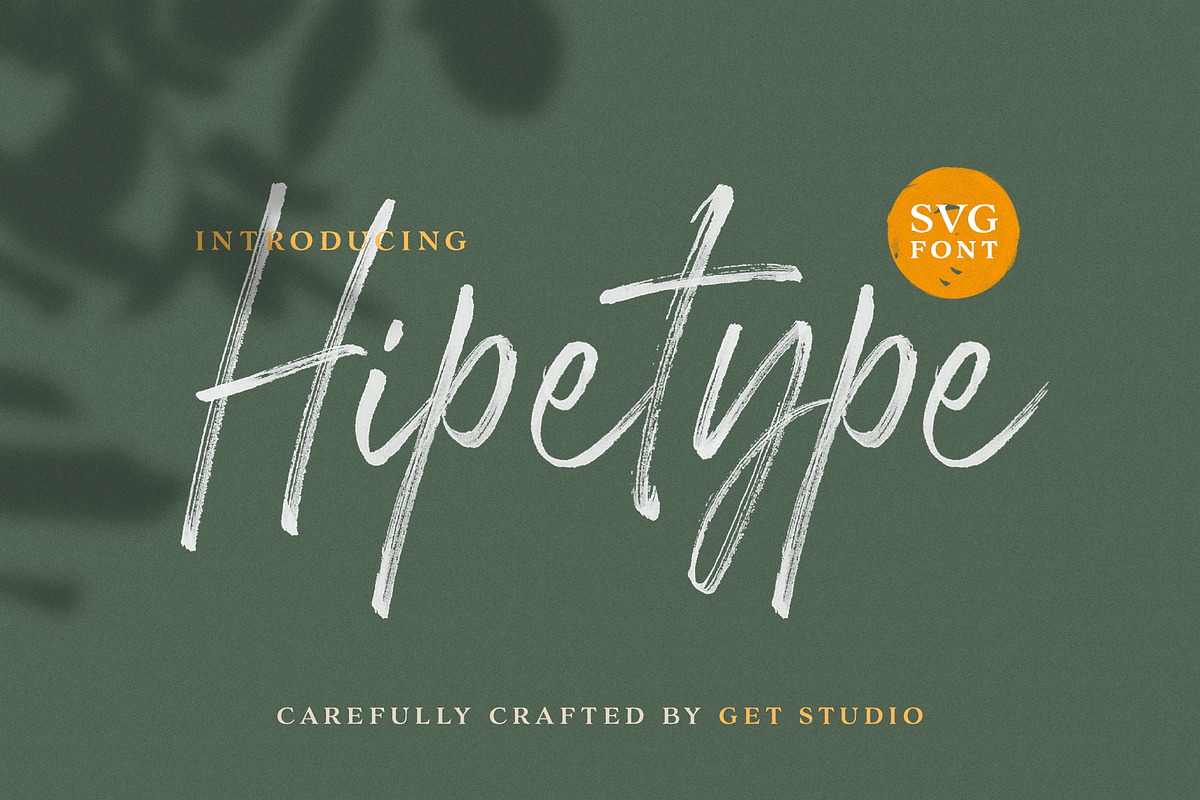
Hipetype SVG Font Free Download is a bold, high-resolution typeface that combines hand-painted texture with modern typographic style. Please note: you must purchase this font for commercial use, but you can test it through a free download. As an OpenType SVG font, Hipetype features realistic brush details, rich color depth, and an edgy, handcrafted aesthetic—perfect for posters, album covers, streetwear branding, and expressive social media content.
Designed for creatives who want their typography to stand out with texture and energy, Hipetype SVG Font Free Download delivers raw visual impact with every letter. Whether you're working on an artistic project or crafting bold display text, this font adds authenticity and a gritty, modern vibe. Best used with Adobe Photoshop or Illustrator. Download it today for personal use and take your designs to the next level with the urban flair of Hipetype.